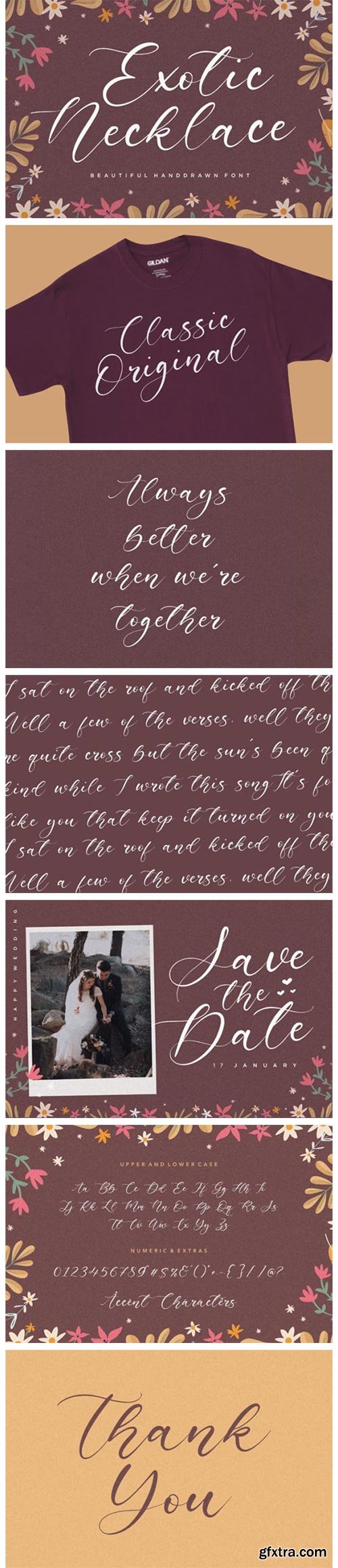
Exotic Necklace Font
Exotic Necklace is a thin and elegant handwritten font. Use it to make your ideas even more realistic and create spectacular designs!